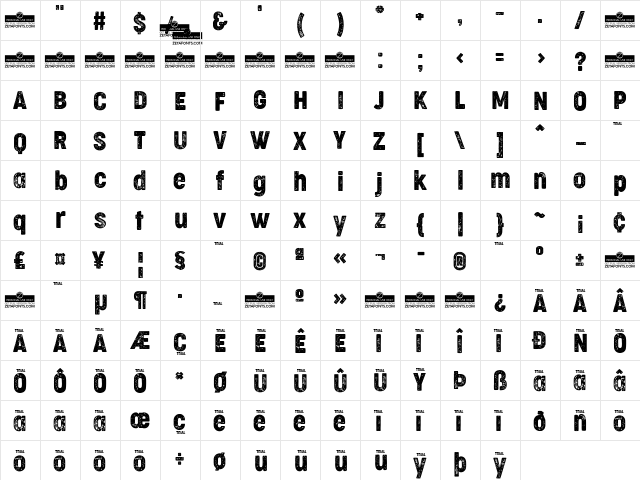
Cocogoose Condensed Letterpress
| Foundry | Zetafonts |
| Designer | Cosimo Lorenzo Pancini |
Design Context for Cocogoose Condensed Typeface
Cocogoose Condensed takes a measured approach to typography — its balanced proportions and neutral character make it a reliable workhorse for both digital and print work. Its narrow stance lets it pack a punch even in space-constrained designs.